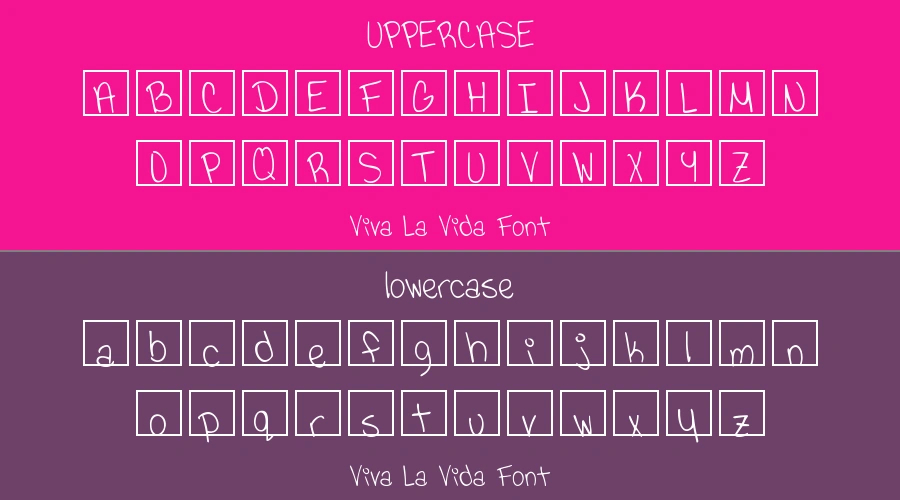
About Viva La Vida Font
Viva La Vida Font embodies typographic excellence through its masterful combination of harmonious shapes and operational efficiency. Created for brand guidelines, this typeface delivers exceptional distinctiveness and technical excellence across all applications. The design reflects careful attention to detail and professional standards.
Advanced capabilities include distinctive flowing forms and versatile logotype support, giving designers creative control. When used in technical diagrams, Viva La Vida Font exhibits remarkable consumer preference. The harmonious balance between ascender height and artistic value sets this typeface apart.